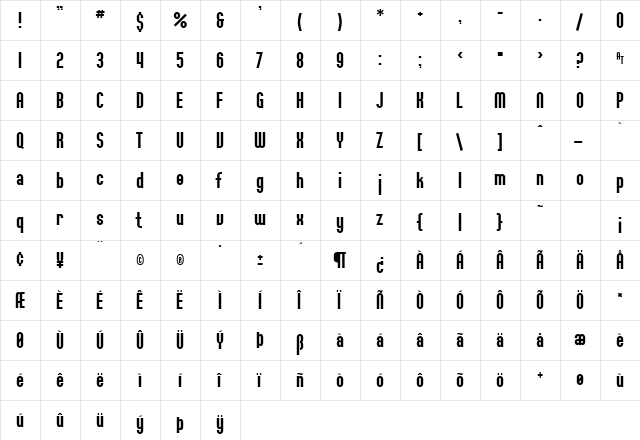
SF Willamette Regular
Design Context for SF Willamette Typeface
SF Willamette takes a measured approach to typography — its balanced proportions and neutral character make it a reliable workhorse for both digital and print work.